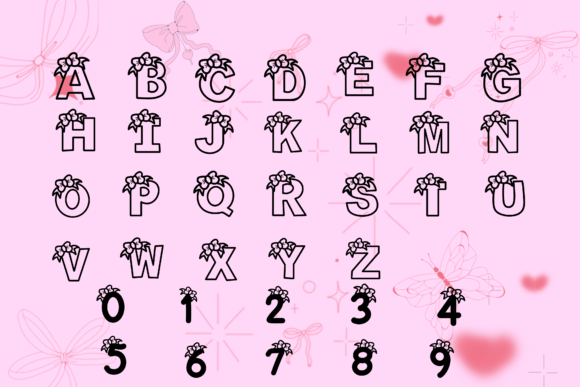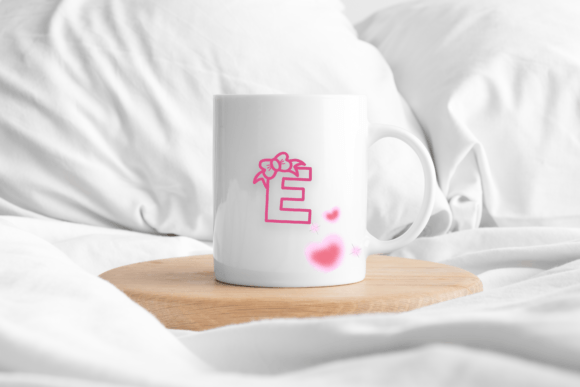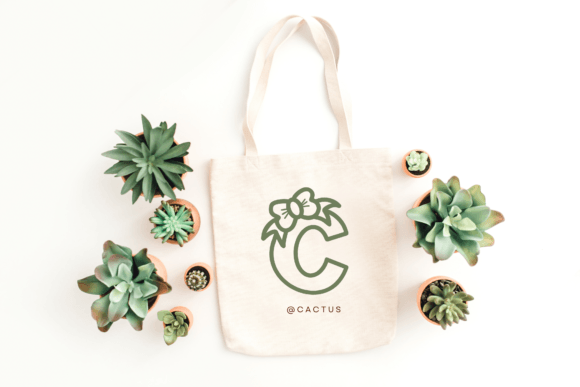
Bow Font
Introducing Bow – an authentically handwritten font – seeking to elevate your creative endeavors. Whether you’re penning a reminiscent diary entry or etching out last-minute notes, Bow has you covered. Yet its utility stretches far beyond just writing needs. Find the beating heart of your design in Bow; brew charm with mugs, stitch elegance onto shirts or spark joy with greeting cards.Emblazon your banners with Bow or write the language of style in stationery. Up your social media game with posts that stand out, or let your content bask in the gentle grace of Bow. Unleash the creative possibilities, more than you can imagine, with the Bow handwritten font.